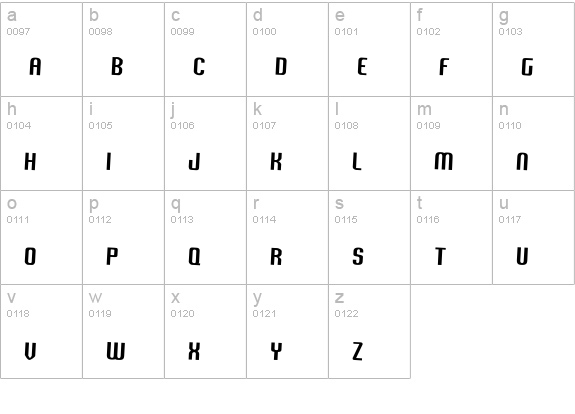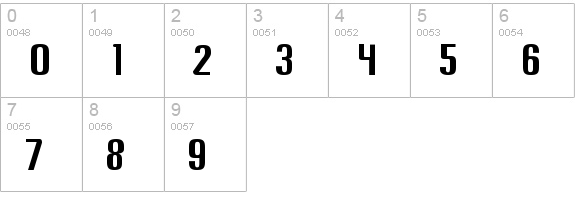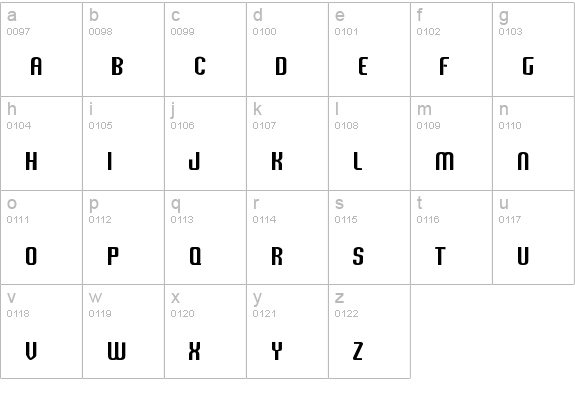
Vixene Font Details
Vixene font is a breathtakingly beautiful typeface that exudes elegance and sophistication. With its graceful curves and impeccable letterforms, this font is perfect for adding a touch of class to any design project. Whether you're creating a wedding invitation, a logo, or a website, Vixene font will captivate your audience and leave a lasting impression. What makes Vixene font even more enticing is the fact that it is completely free! Yes, you read that right. This stunning font can be freely downloaded at FontsMarket.com, allowing you to enhance your designs without breaking the bank. With its generous licensing terms, you can use Vixene font for personal and commercial projects, making it a valuable asset for designers, entrepreneurs, and creatives alike. When you choose Vixene font, you're not just getting a typeface; you're getting a versatile tool that will elevate your designs to new heights. Its timeless appeal and versatility make it suitable for a wide range of applications, from branding and advertising to packaging and editorial design. Vixene font's attention to detail is evident in every character. Each letter is meticulously designed to ensure optimal legibility and visual harmony. The font's refined strokes and exquisite letterforms create a sense of style and sophistication that is hard to match. Whether you're a seasoned designer or just starting out, Vixene font is a must-have addition to your font library. Its versatility, elegance, and, most importantly, its free availability make it an irresistible choice for any project. So why wait? Head over to FontsMarket.com and download Vixene font now to embark on a design journey that is bound to be both captivating and impressive.